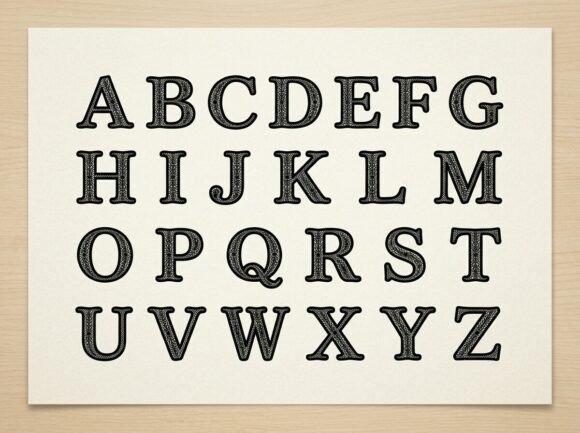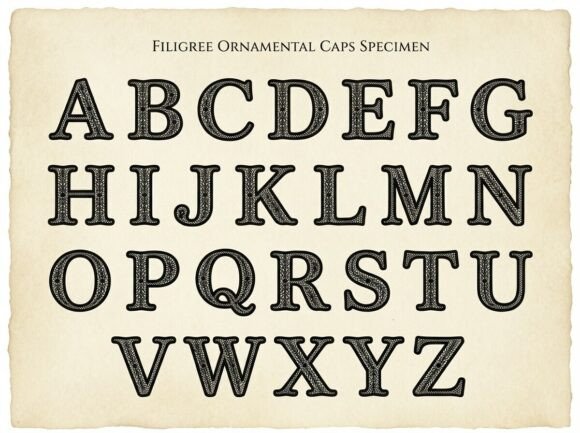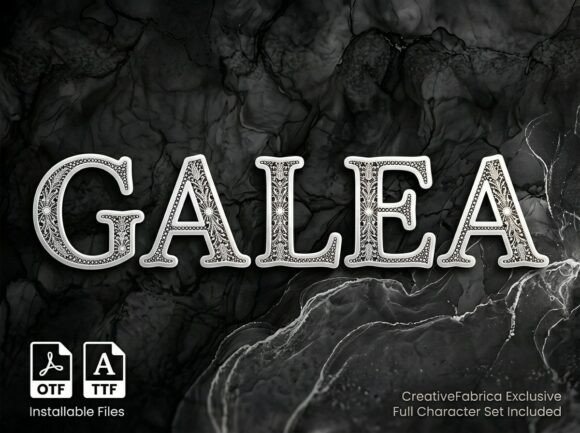
Galea Font: A Stunning Decorative Display Font for Creative Minds
In the world of typography, a font can make or break a design. For creators, artists, and designers looking to add a touch of uniqueness and personality to their work, the Galea Font is a game-changer. This decorative display font is designed to be the center of attention, boasting unique artistic elements and a strong visual personality that sets it apart from more traditional fonts.
What Makes Galea Font So Special?
Galea Font is a versatile and stunning decorative display font that is perfect for those who want to break away from the ordinary. Its unique design makes it ideal for bold headlines, artistic logos, and creative packaging, while maintaining a professional and polished finish. Whether you’re a designer, artist, or crafter, this font is sure to elevate your work and make it stand out.
Key Features of Galea Font
- Unique Artistic Elements: Galea Font features intricate and artistic elements that give it a distinctive look and feel.
- Strong Visual Personality: This font has a bold and confident personality that is sure to make a statement.
- Versatile: Galea Font can be used for a variety of design projects, from bold headlines and artistic logos to creative packaging.
- Professional and Polished Finish: Despite its bold and artistic nature, Galea Font maintains a professional and polished finish that is suitable for a wide range of applications.
Important Note: All-Caps Display Typeface
⚠️ IMPORTANT NOTE BEFORE PURCHASE: Galea Font is an ALL-CAPS (Uppercase Only) display typeface. It does not include lowercase letters. It is specifically designed for high-impact headlines, logos, and decorative initials where every letter is a work of art.
Why Choose Galea Font?
There are many reasons why designers and crafters might choose Galea Font for their projects. Here are just a few:
- Add a Touch of Uniqueness: With Galea Font, you can add a touch of uniqueness and personality to your designs.
- Make a Statement: This font is designed to make a statement, and is perfect for bold headlines and attention-grabbing designs.
- Elegant and Sophisticated: Despite its bold nature, Galea Font has an elegant and sophisticated feel that is suitable for a wide range of applications.
- Perfect for Logos and Branding: The artistic and decorative nature of Galea Font makes it perfect for logos, branding, and packaging design.
Tips for Using Galea Font
Here are a few tips for getting the most out of Galea Font:
- Use it Sparingly: Because of its bold and artistic nature, it’s best to use Galea Font sparingly to avoid overwhelming the viewer.
- Pair it with a Simpler Font: For body text and other smaller design elements, consider pairing Galea Font with a simpler font to create visual contrast.
- Experiment with Colors and Textures: Don’t be afraid to experiment with different colors and textures to really make your design pop.